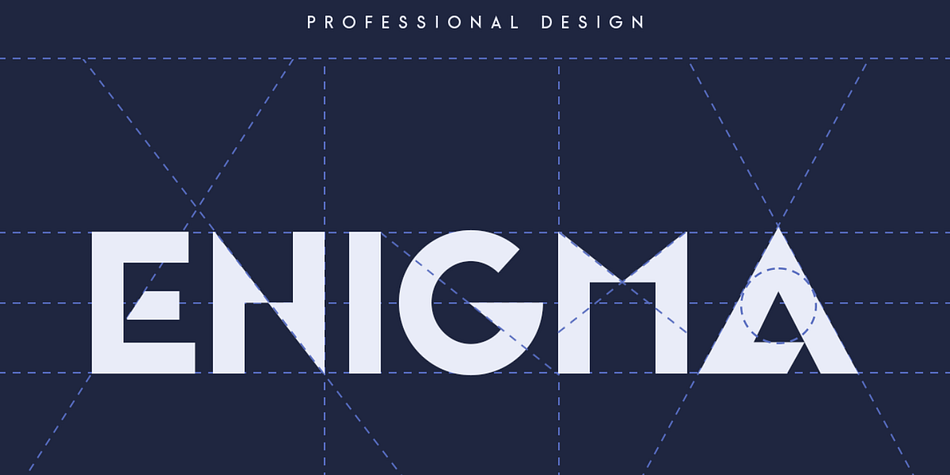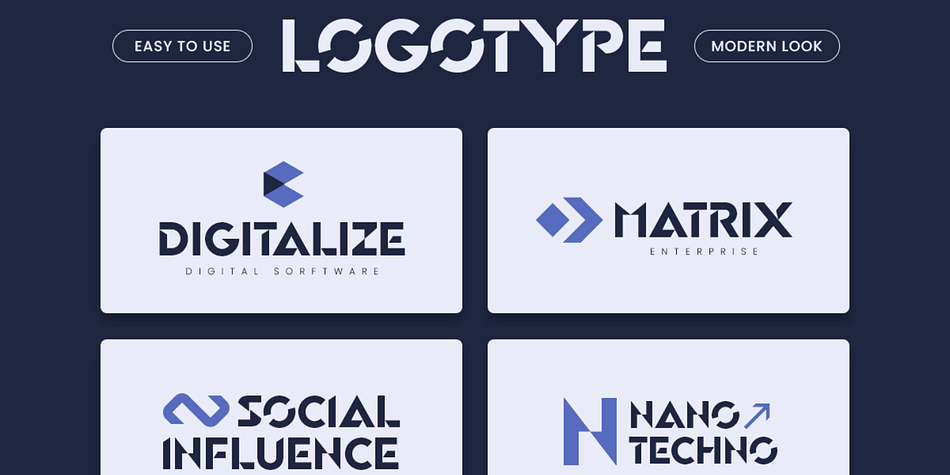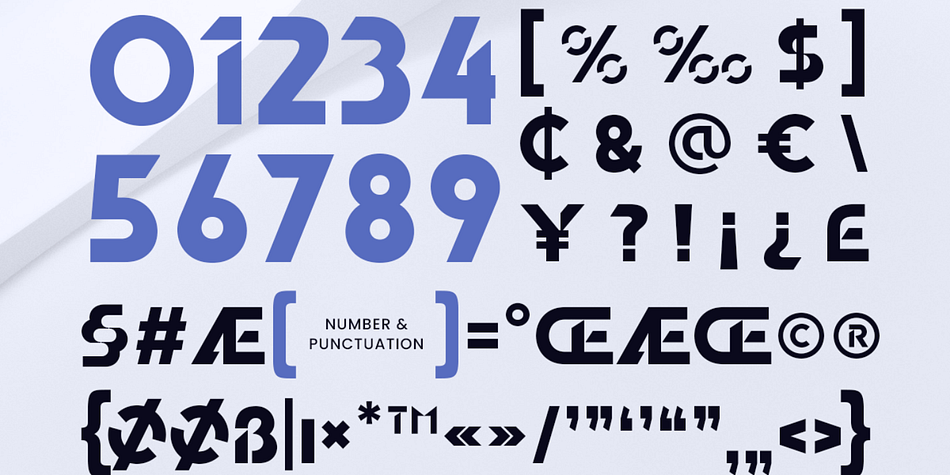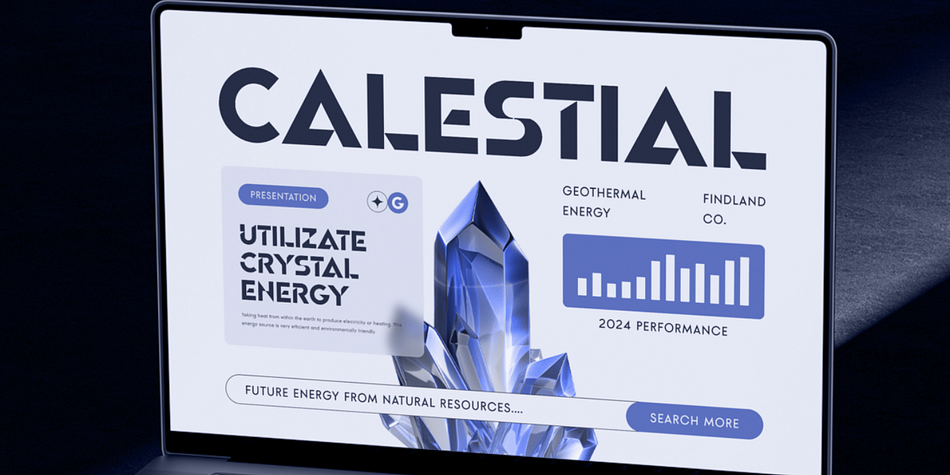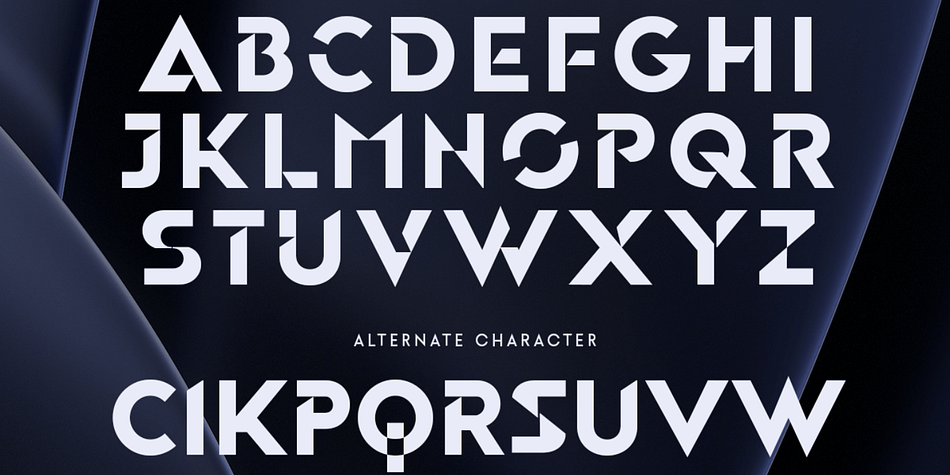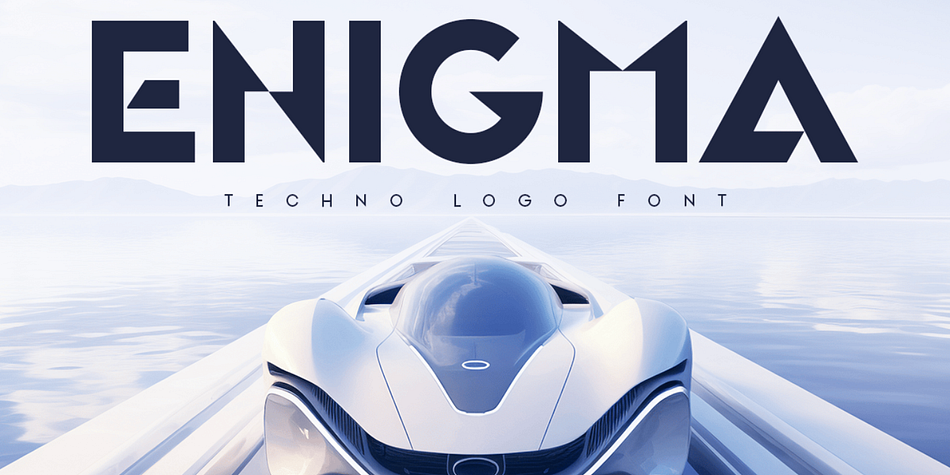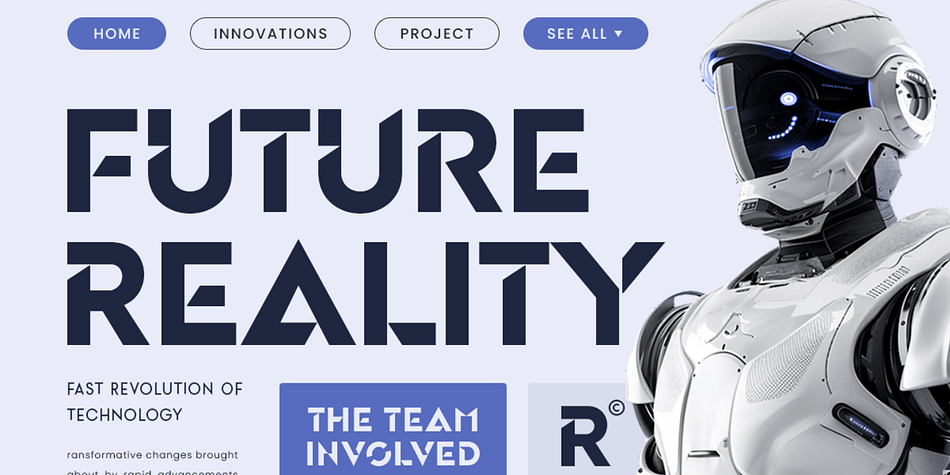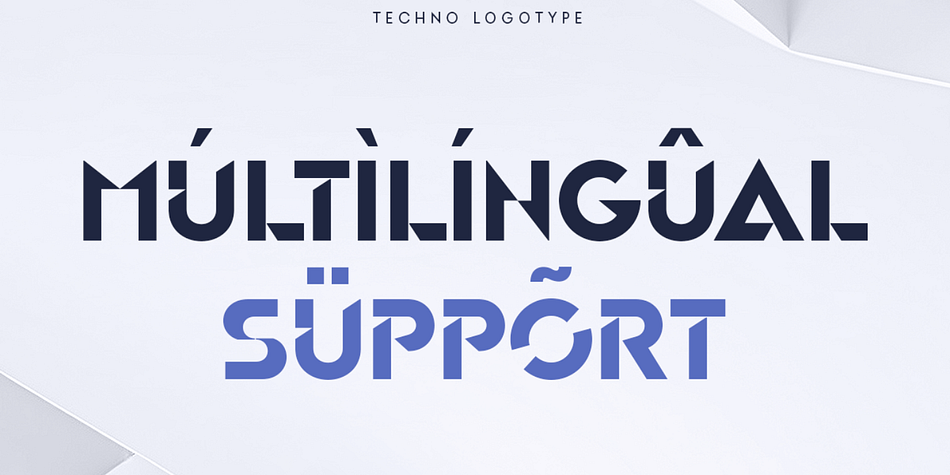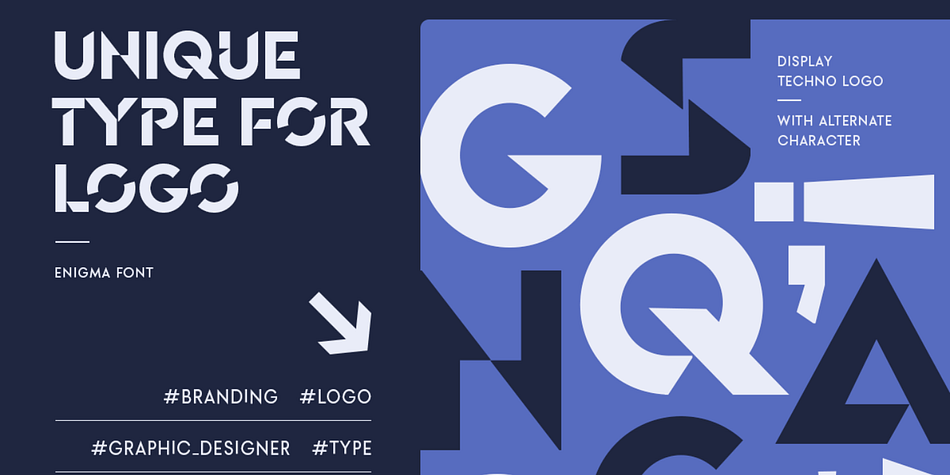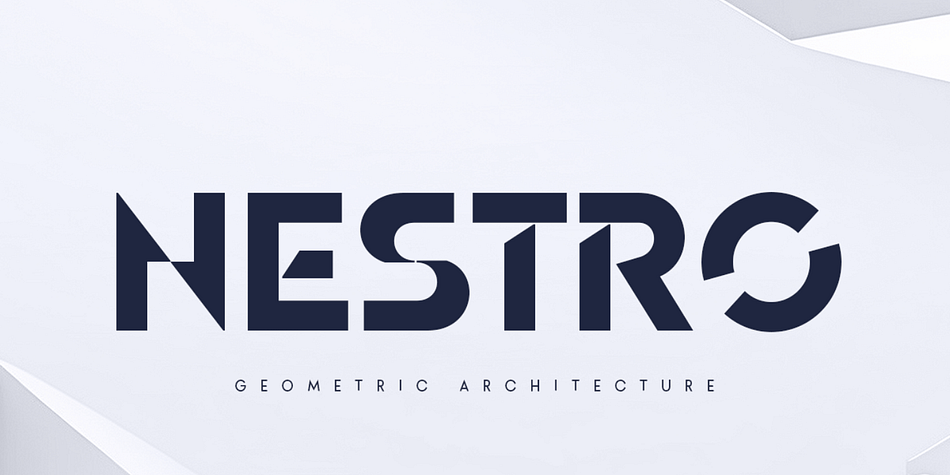
Explore the Future of Design
Enigma is a techno logo font that encapsulates the essence of futuristic innovation. With its sleek, geometric forms and cutting-edge aesthetic, it’s designed to make your projects look bold and forward-thinking.
Perfect for Tech Branding
Whether crafting logos, app interfaces, or digital products, Enigma elevates your designs with a unique modern touch. Its minimalist yet striking style ensures your brand stands out in the tech and digital industries.
Bold Simplicity, Maximum Impact
Enigma redefines simplicity with its bold and innovative approach. It’s a font that inspires creativity, making it an essential tool for designers who want to push the boundaries of modern typography.
Enigma Techno Logo Font Features:
Alternates Characters Ready
Punctuation, Number, and Symbol
Uppercase and Lowercase
Opentype Features
Multilingual Characters available for:
Afrikaans, Albanian, Asu, Basque, Bemba, Bena, Breton, Chiga, Cornish, Dutch, English, Estonian, Filipino, Finnish, Friulian, Galician, German, Gusii, Indonesian, Irish, Italian, Kabuverdianu, Kalenjin, Kinyarwanda, Luo, Luxembourgish, Luyia, Machame, Makhuwa-Meetto, Makonde, Malagasy, Manx, Morisyen, North Ndebele, Nyankole, Oromo, Portuguese, Quechua, Romansh, Rombo, Rundi, Rwa, Samburu, Sango, Sangu, Scottish Gaelic, Sena, Shambala, Shona, Soga, Somali, Spanish, Swahili, Swedish, Swiss.